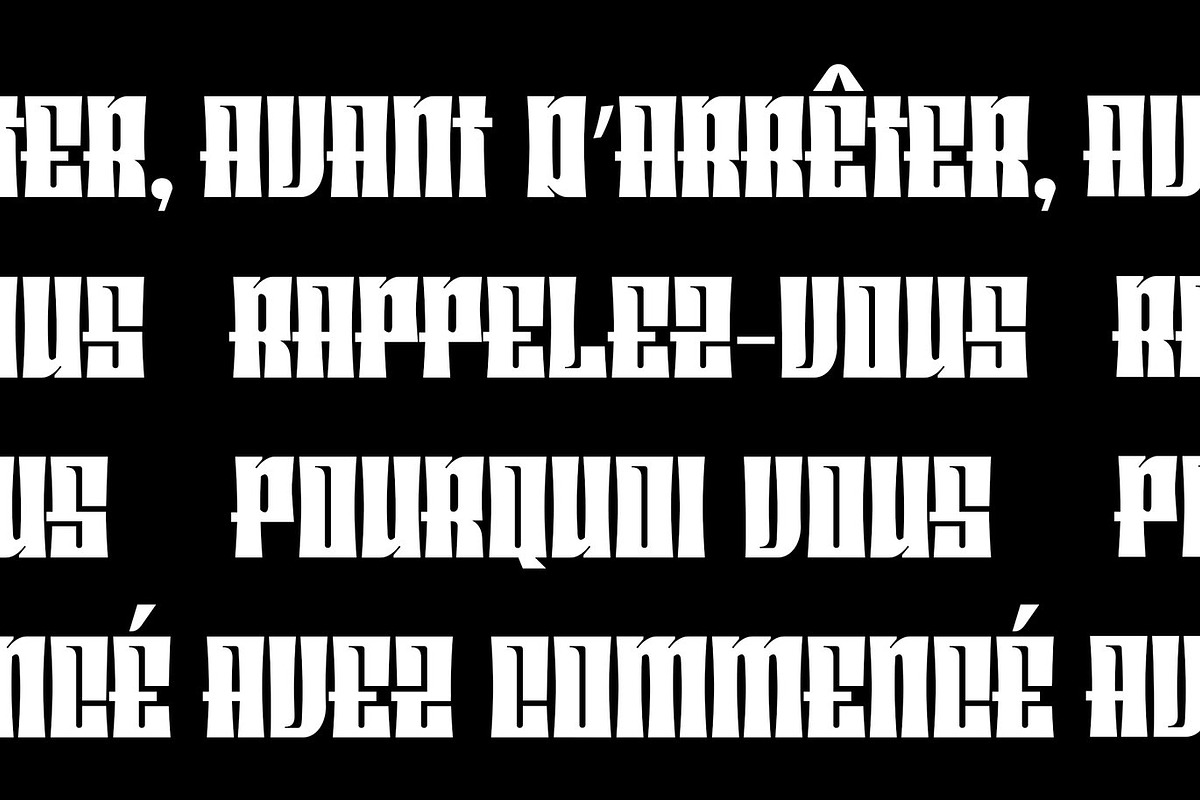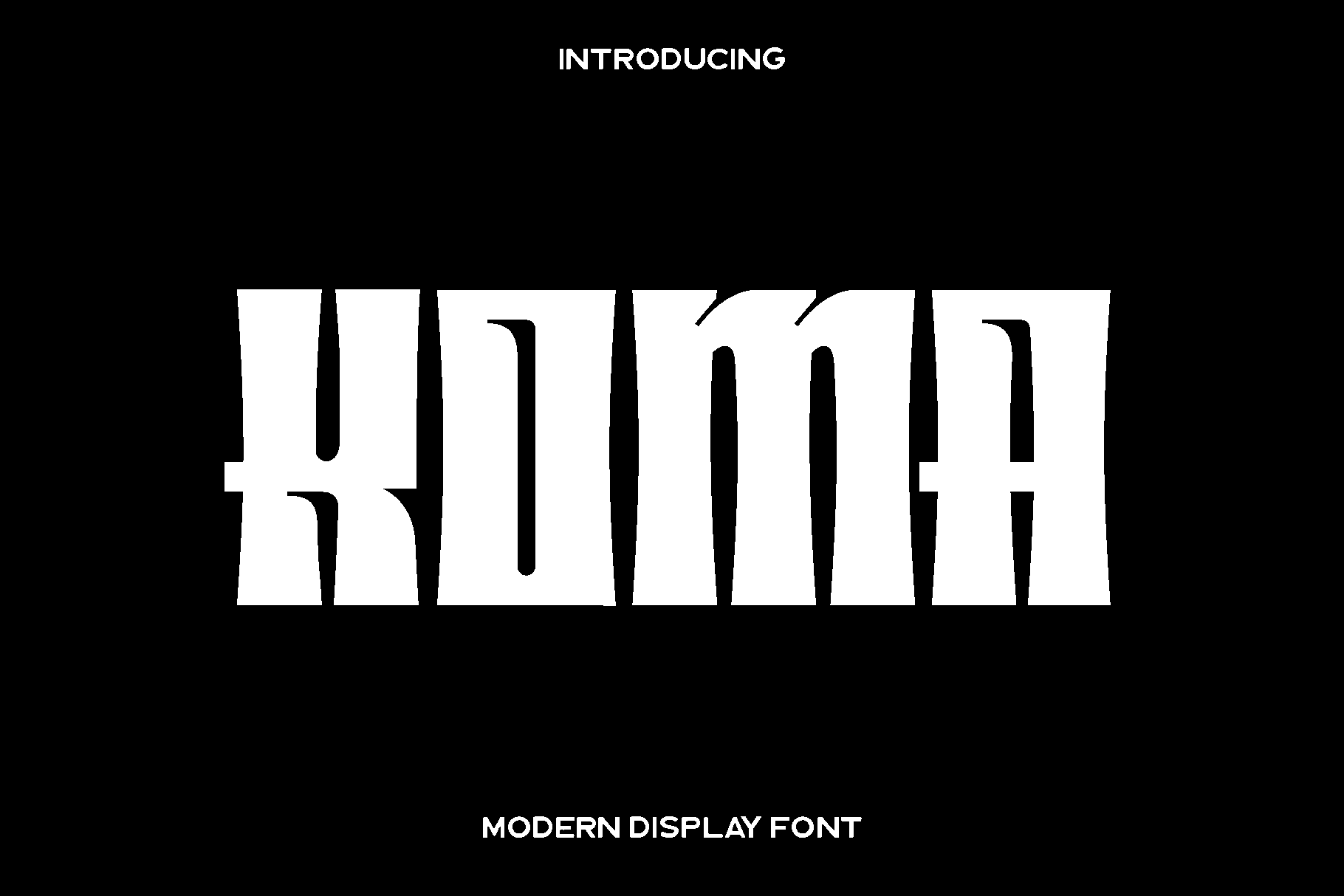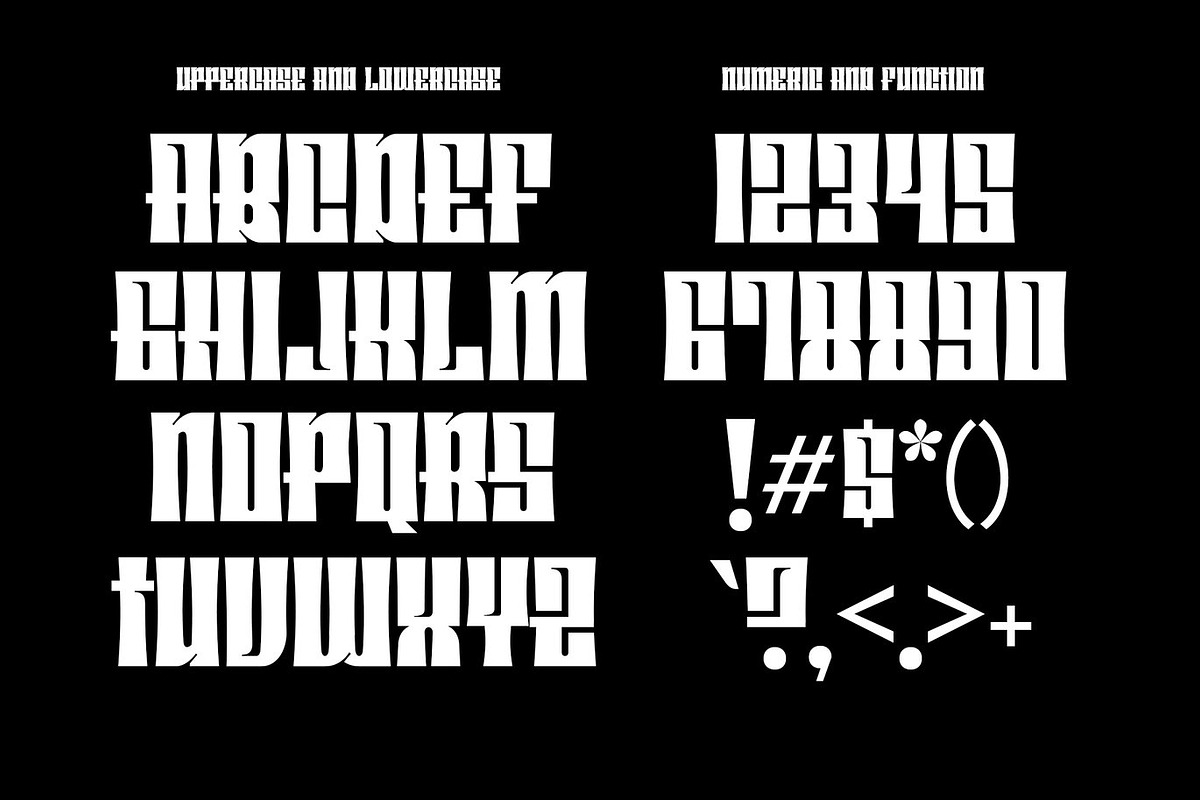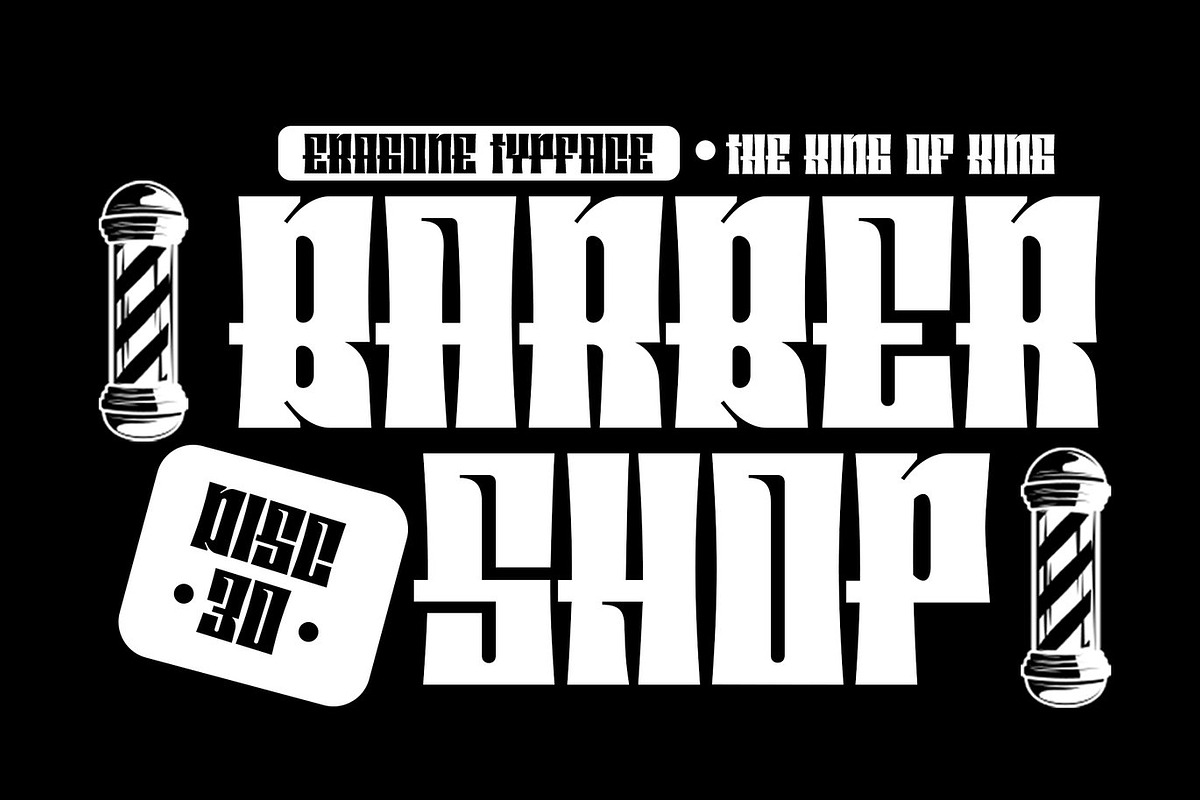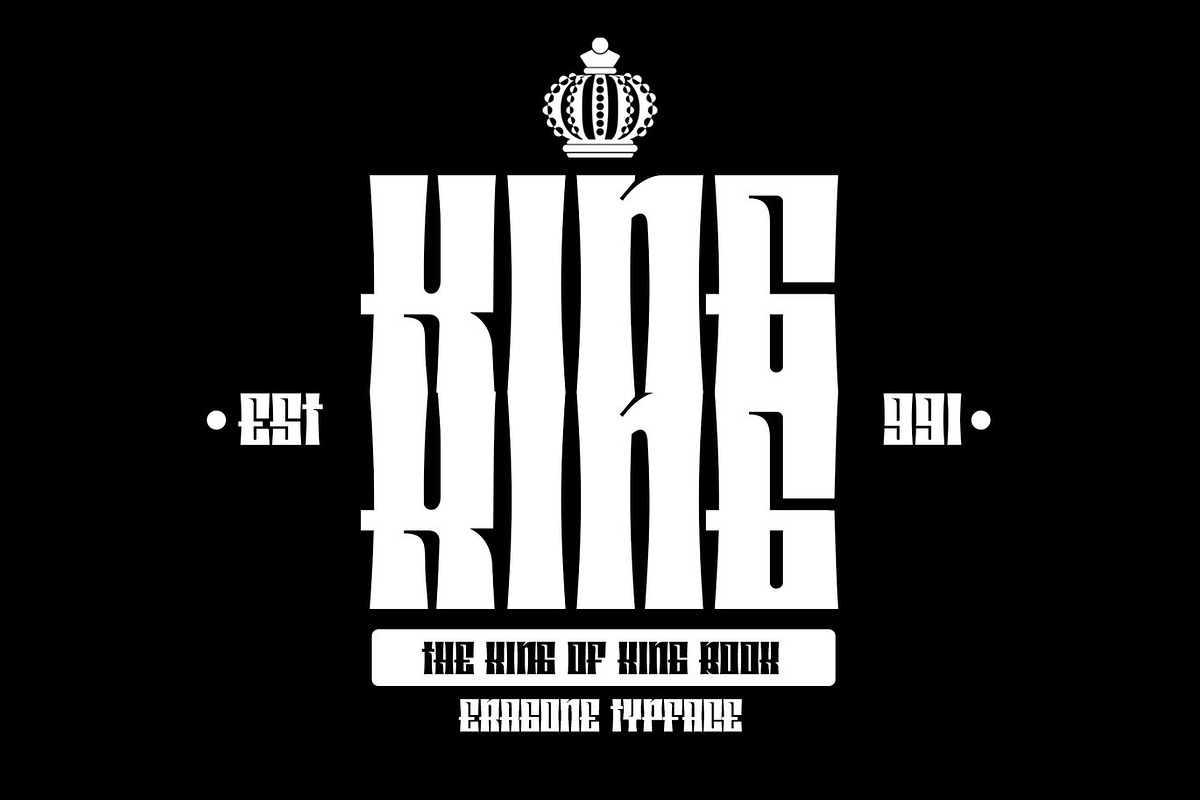
Koma Display Font
Koma is a bold and expressive display font created to bring personality and warmth into your designs. Designed with an all caps style, Koma feels playful yet confident, making it a great choice for creatives who want their work to feel eye catching and handcrafted. Each glyph is thoughtfully shaped to deliver strong visual impact while maintaining a friendly and approachable character.
Inspired by modern craft lettering and decorative typography, Koma shines in branding projects, Procreate lettering, home decor crafts, invitations, stickers, posters, and social media visuals. Its clear structure and artistic touch make it easy to use across both digital and print designs, while still giving your work a unique identity.
Koma feels creative, fun, and versatile. Whether you are designing logos, decorative quotes, wall art, or event materials, this font helps your message stand out with charm and clarity. The all caps design ensures consistency and boldness, perfect for titles and statements that need attention.
Koma Display Font Features:
• All caps display characters
• Numbers and basic punctuation
• Multilingual support
• Ideal for branding, crafts, decor, invitations, and Procreate projects
• Easy to use for both print and digital designs
Koma is made for designers, crafters, and creators who love expressive typography and want to add a distinctive touch to every project.